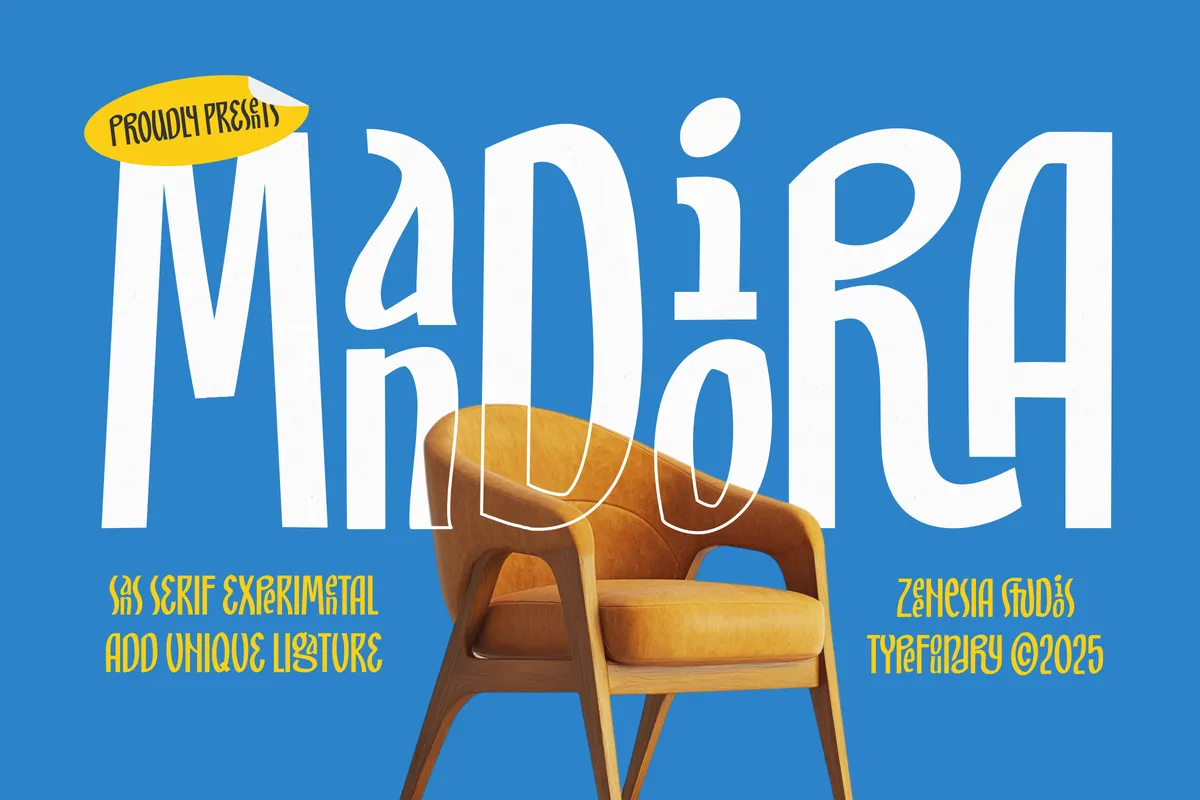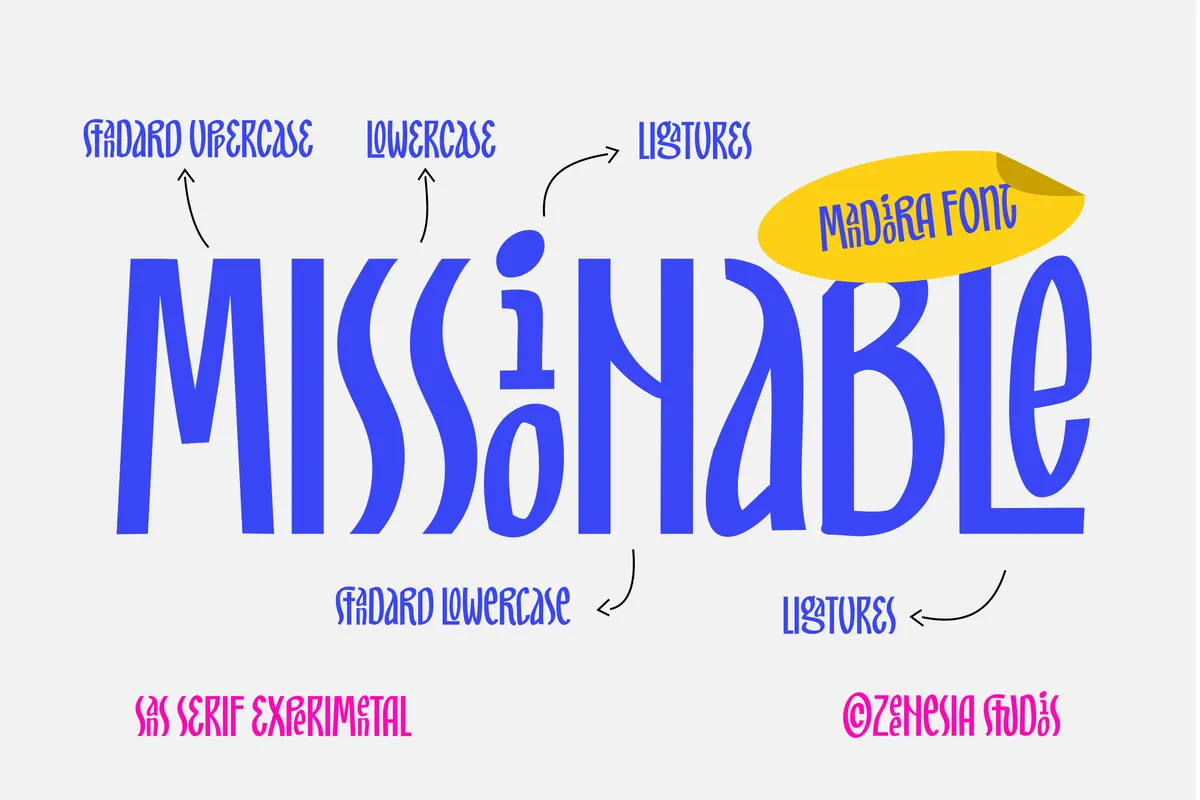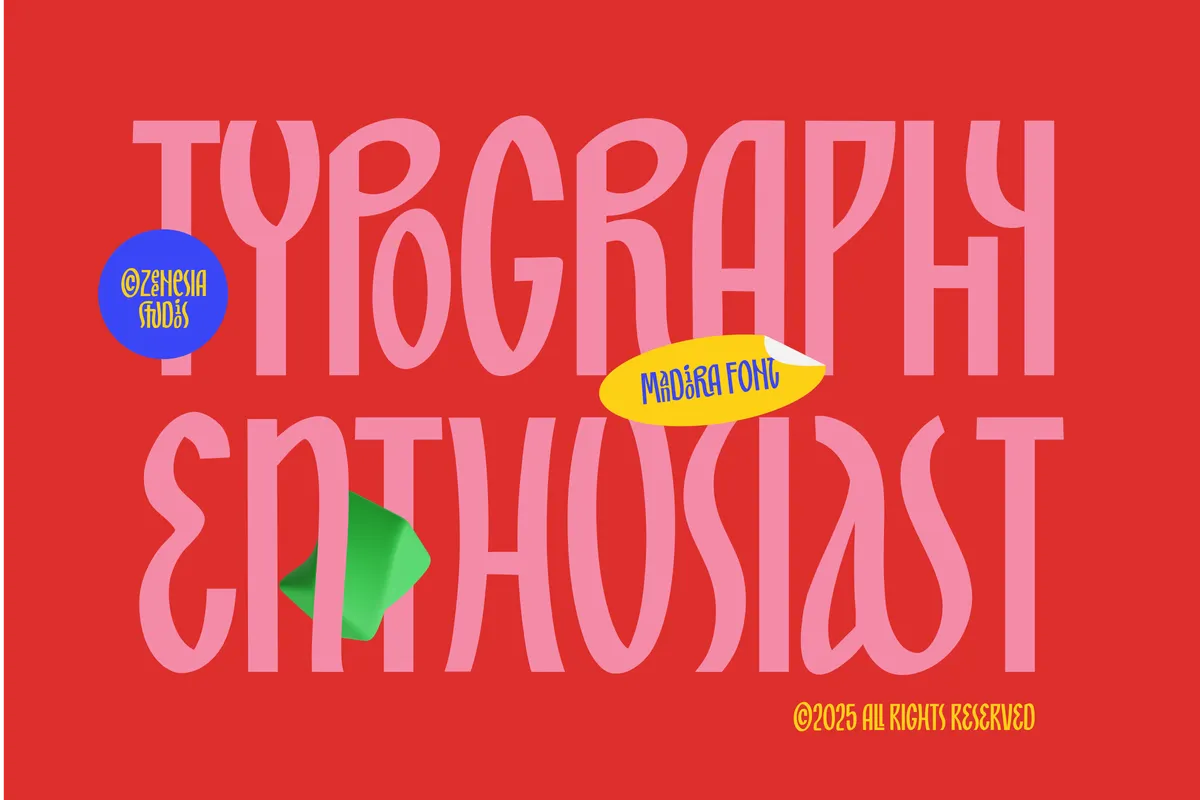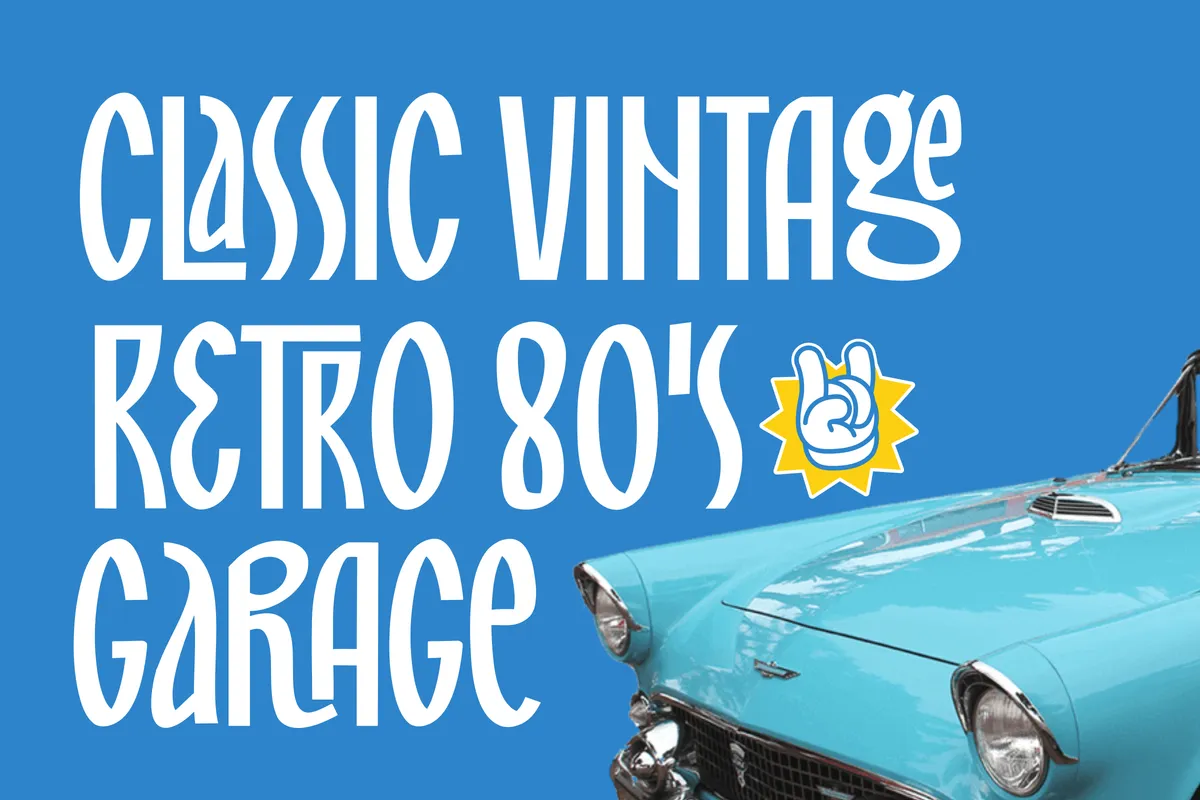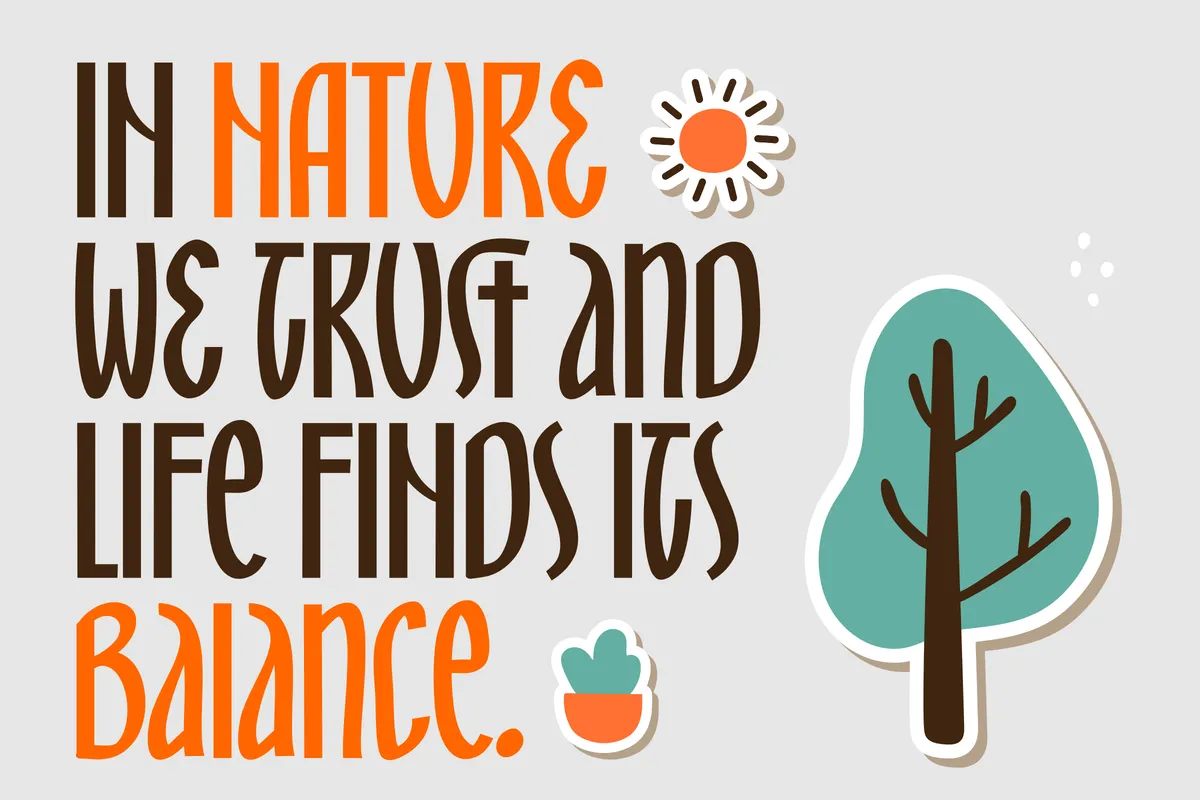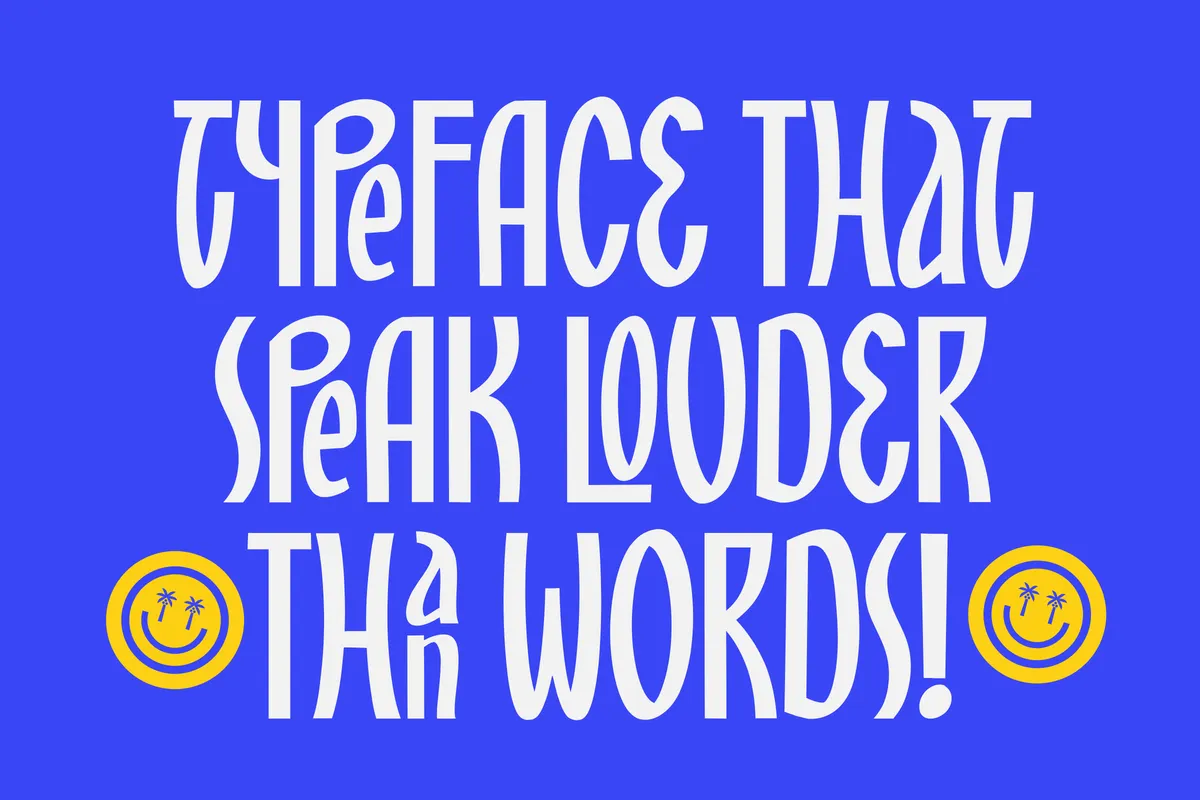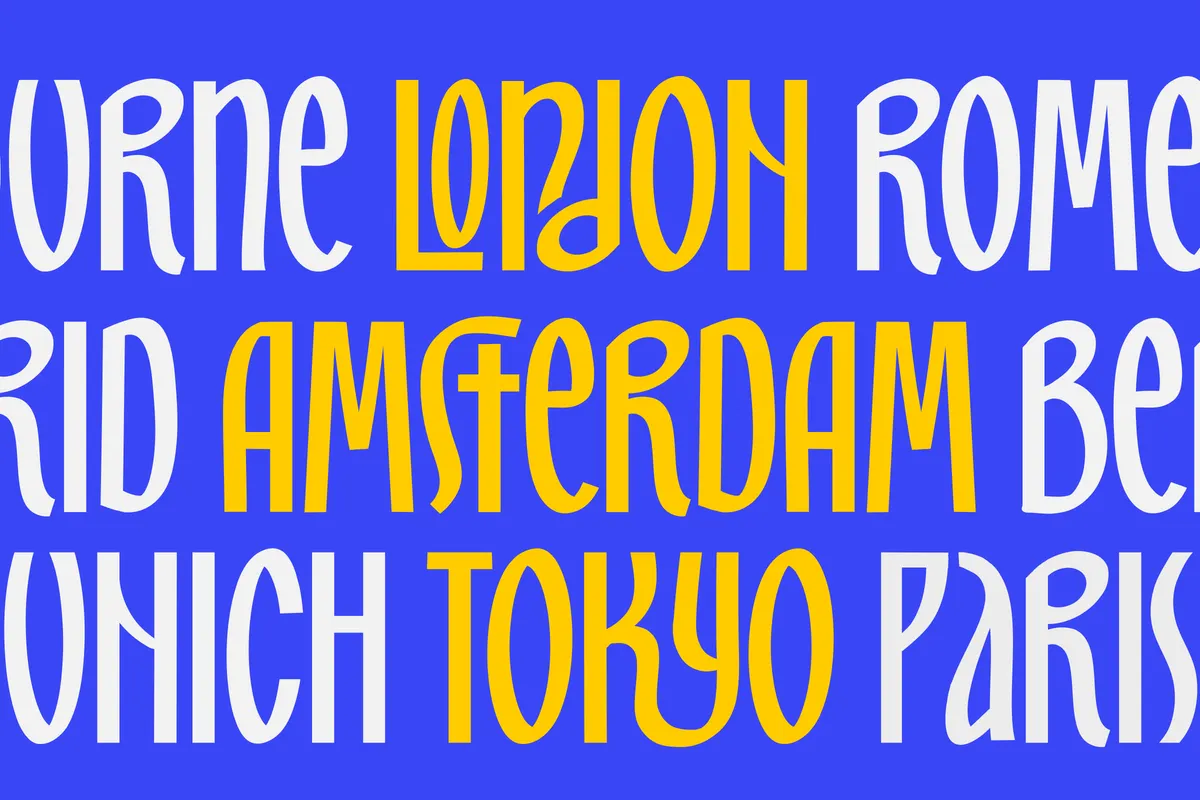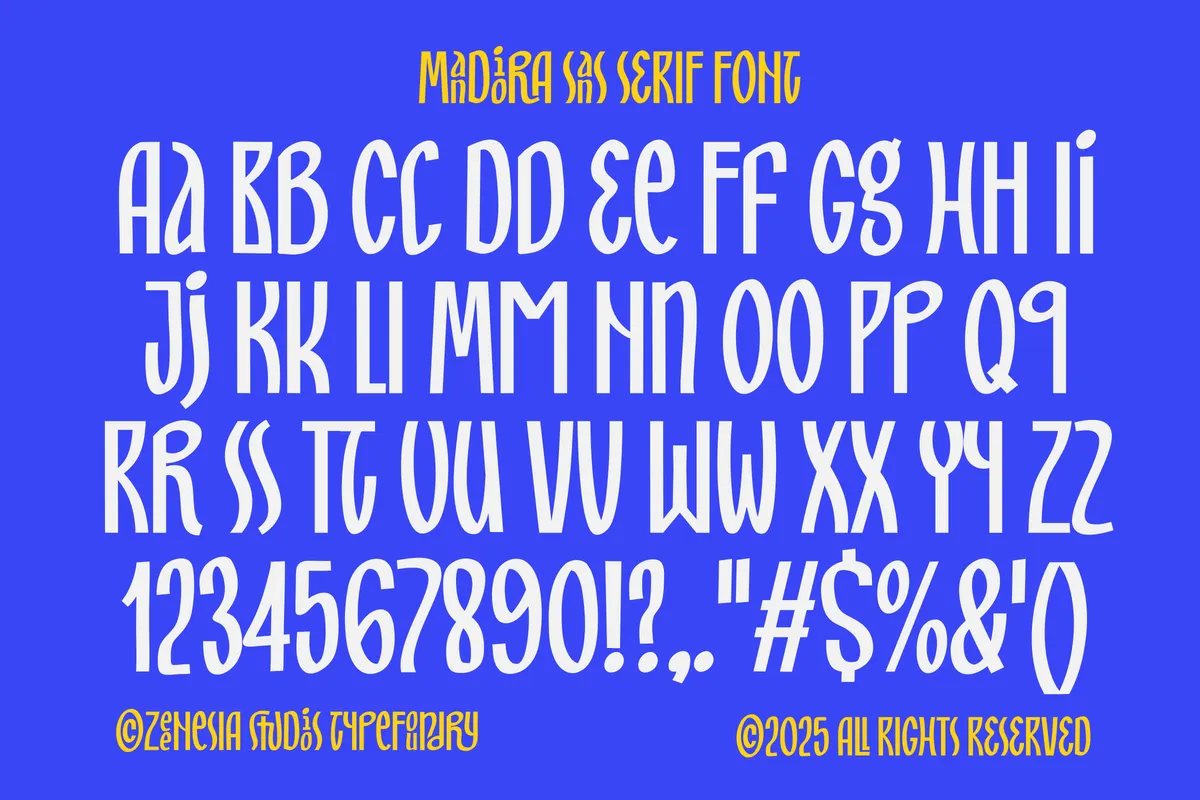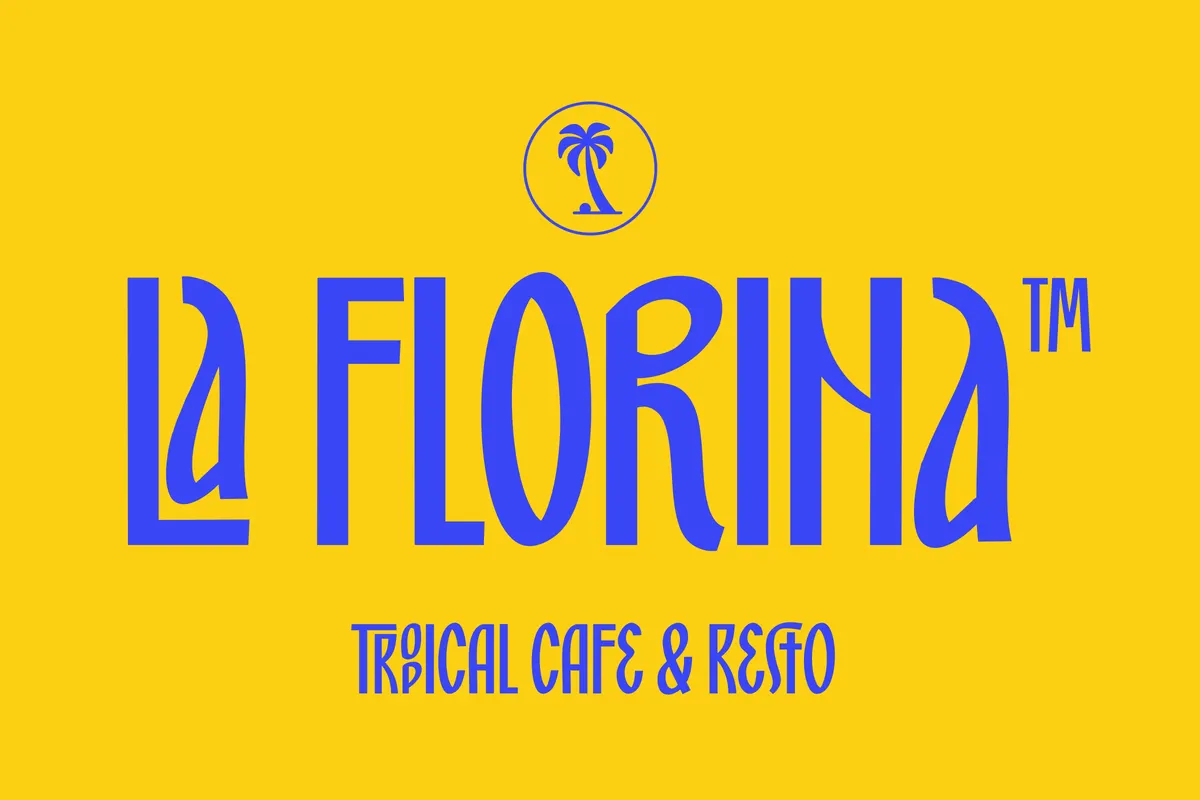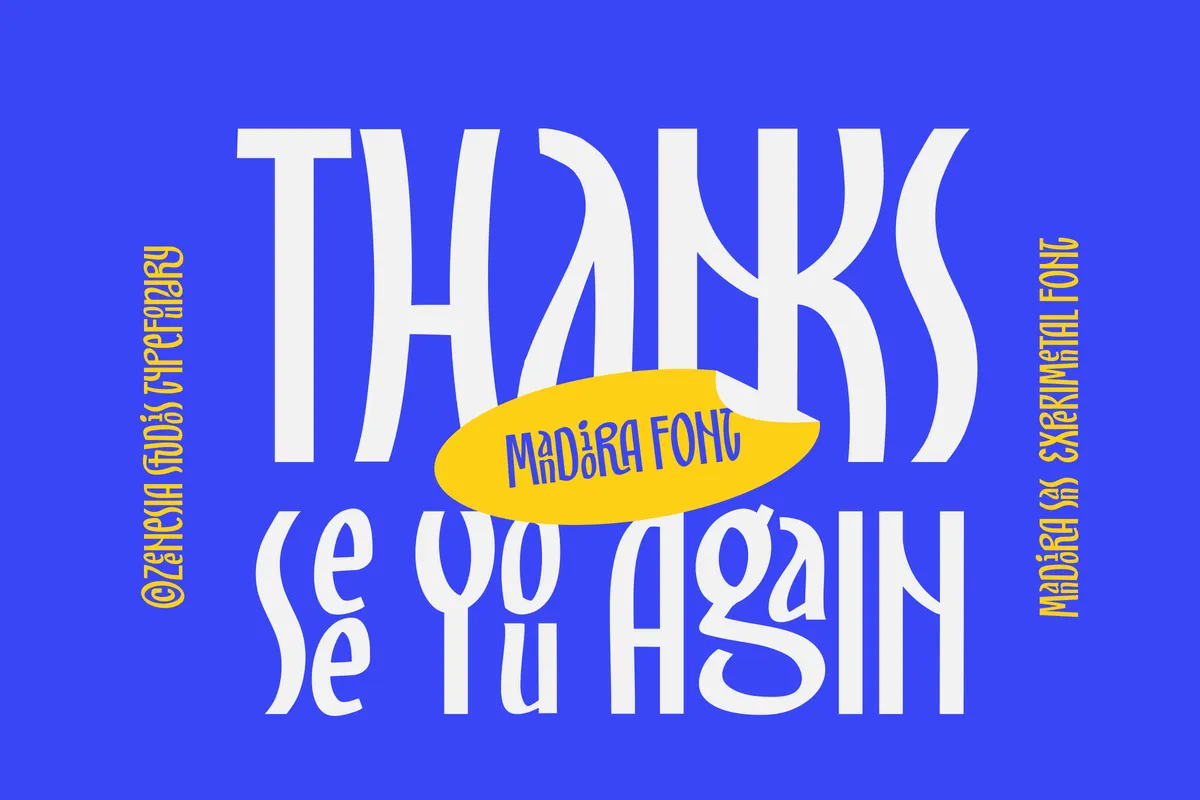
Mandiora - Stacked Ligature Display Font
Mandiora
Mandiora is a tall, narrow display font whose sixty ligatures stack small letters inside the gaps of big ones, so a short word packs down into a single block. Baselines and cap heights shift from letter to letter, as if the word had been cut from paper and pasted slightly off.
The effect lands at poster size and on short words; long running text loses the trick. Use it for café and restaurant logos, record covers, event posters, social campaign headers, skincare packaging, travel stickers, and T-shirt prints.
- one style: Regular;
- uppercase & lowercase;
- numerals, punctuation & symbols;
- 60 stacked ligatures;
- Latin-1 Western European;
- 291 glyphs.